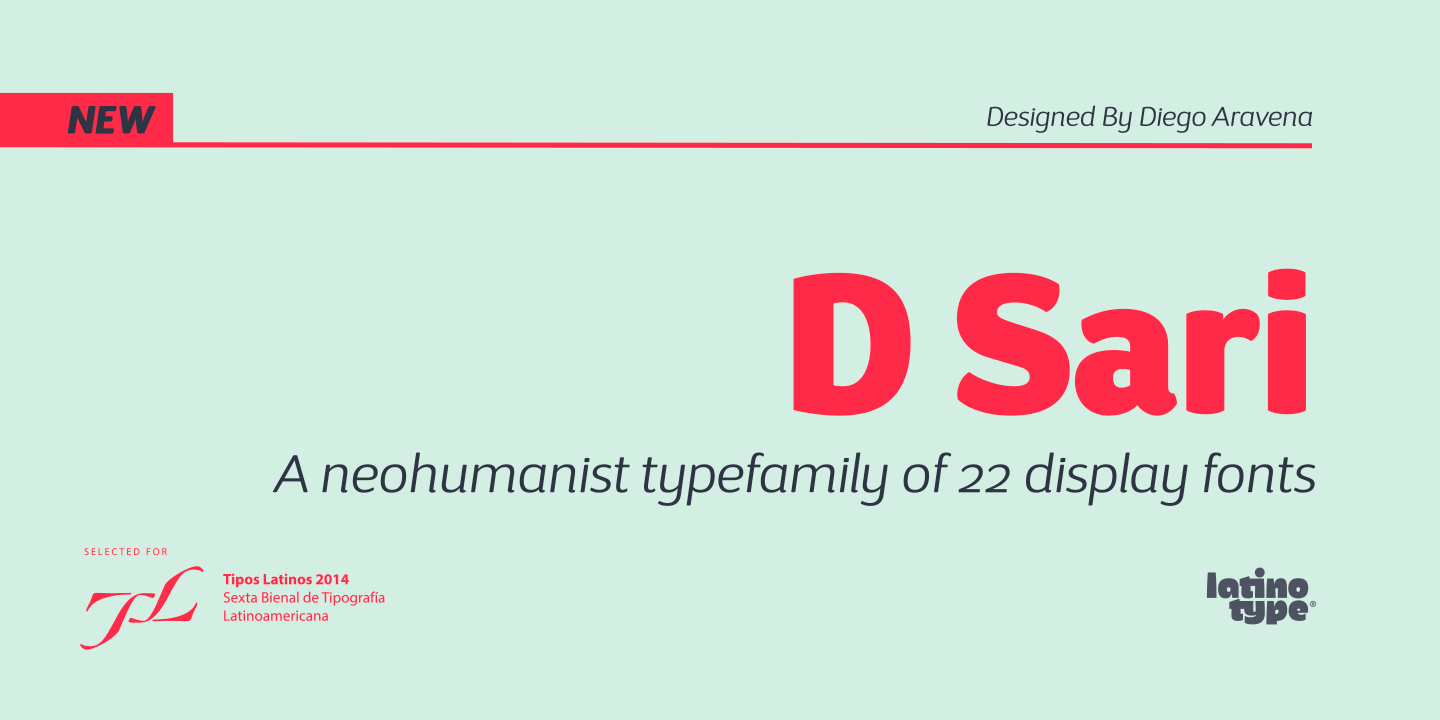
Perfect for cultural heritage branding, traditional fashion marketing, ethnic restaurant menus, multicultural event materials, heritage preservation projects, traditional craft promotions, cultural festival signage, and authentic storytelling designs.
This font is exciting because it captures the rich cultural heritage and traditional elegance of ethnic typography with beautifully crafted letterforms that embody the artistic sophistication and cultural depth found in traditional design aesthetics.
Celebrate the beauty of cultural heritage with DSari Font Free Download, an elegantly crafted typeface that embodies the rich traditions and artistic sophistication of ethnic typography. This exceptional font brings the cultural depth and traditional elegance of heritage design to contemporary projects, making it perfect for organizations seeking to honor cultural authenticity, celebrate diversity, and create meaningful connections with multicultural audiences through respectful and beautiful visual communication.
DSari Font features beautifully designed letterforms with cultural characteristics and traditional proportions that immediately evoke the artistic heritage and cultural richness of ethnic design traditions. The thoughtfully crafted characters combine traditional aesthetics with modern functionality, creating immediate associations with cultural authenticity, artistic heritage, and the sophisticated design sensibilities that define traditional craftsmanship and cultural expression across diverse communities worldwide.
The font's remarkable cultural authenticity makes it invaluable for cultural organizations, heritage brands, and multicultural businesses where conveying traditional values and cultural respect is essential for building community trust and authentic connections. Whether you're designing materials for cultural centers celebrating ethnic heritage, creating promotional content for traditional craft artisans preserving ancient techniques, or developing brand identities for restaurants serving authentic cultural cuisine, DSari Font delivers the genuine cultural aesthetic that resonates with audiences seeking authentic cultural experiences and traditional values.
Cultural heritage professionals and multicultural brand specialists worldwide choose the DSari Font Free Download for projects requiring cultural authenticity and traditional elegance. The font works brilliantly for museums showcasing ethnic art collections, cultural festivals celebrating diversity, traditional textile companies preserving heritage crafts, and any organization seeking to establish connections with communities who appreciate cultural preservation and the authentic representation of traditional artistic values.
The comprehensive DSari Font family includes variations that maintain the signature cultural character while providing design flexibility for diverse heritage and multicultural applications. Each character demonstrates exceptional attention to traditional design principles, ensuring the cultural character remains authentic and visually appealing across all sizes, from detailed cultural publication typography to large-scale festival signage and community center materials.
This typeface excels in applications where creating atmosphere of cultural respect and traditional beauty is crucial for establishing authentic community connections and cultural credibility. The elegant letterforms create immediate associations with cultural heritage that eliminates the need for additional decorative elements, allowing the typography itself to communicate respect, tradition, and the timeless beauty of cultural artistic expression.
DSari Font's technical excellence ensures optimal performance across both traditional cultural materials and modern digital platforms used for heritage preservation and multicultural communications. The distinctive letterforms maintain their cultural elegance when reproduced on various materials, from traditional printed materials to contemporary signage that must honor cultural heritage while serving modern community needs.